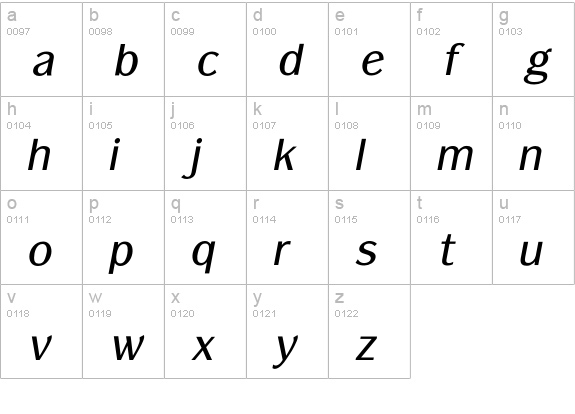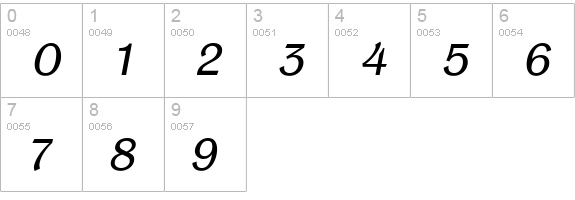
PanacheBookItalic Font Details
PanacheBookItalic font is a stunning and elegant typeface that exudes sophistication and style. Its sleek and curvaceous letterforms are meticulously designed, offering a perfect balance between traditional elegance and modern flair. The italicized nature of this font adds a touch of dynamism and movement, making it perfect for adding emphasis and creating eye-catching designs. One of the most remarkable aspects of PanacheBookItalic font is that it is available for free. Yes, you heard it right! This incredible font can be freely downloaded at FontsMarket.com. This means that designers, creatives, and typographic enthusiasts can access this font without any cost, allowing them to explore and utilize its unique features without any limitations. Whether you are designing a logo, creating stunning graphics, or simply looking to add a touch of sophistication to your project, PanacheBookItalic font is the perfect choice. Its versatility allows it to be used in a wide range of design applications, from brand identities to editorial layouts and everything in between. With its timeless and elegant aesthetic, PanacheBookItalic font effortlessly captures attention and adds a touch of class to any design. Its smooth and flowing curves create a sense of harmony and balance, making it highly legible and pleasing to the eye. So why wait? Head over to FontsMarket.com and download PanacheBookItalic font for free today. Unleash your creativity and elevate your designs with this remarkable typeface that is sure to leave a lasting impression.